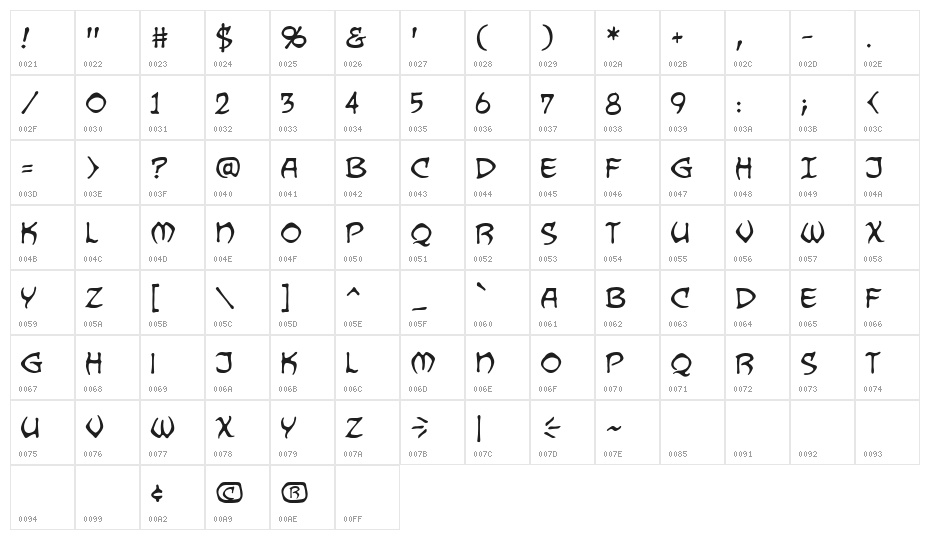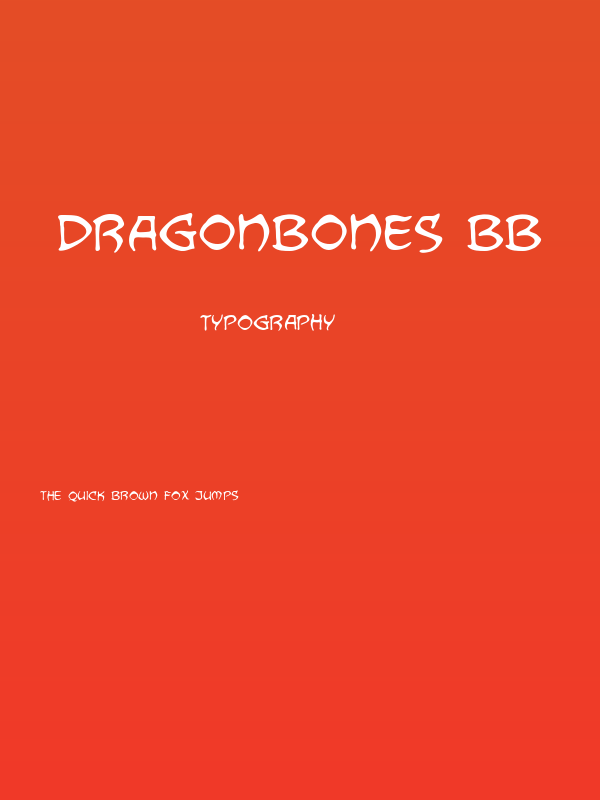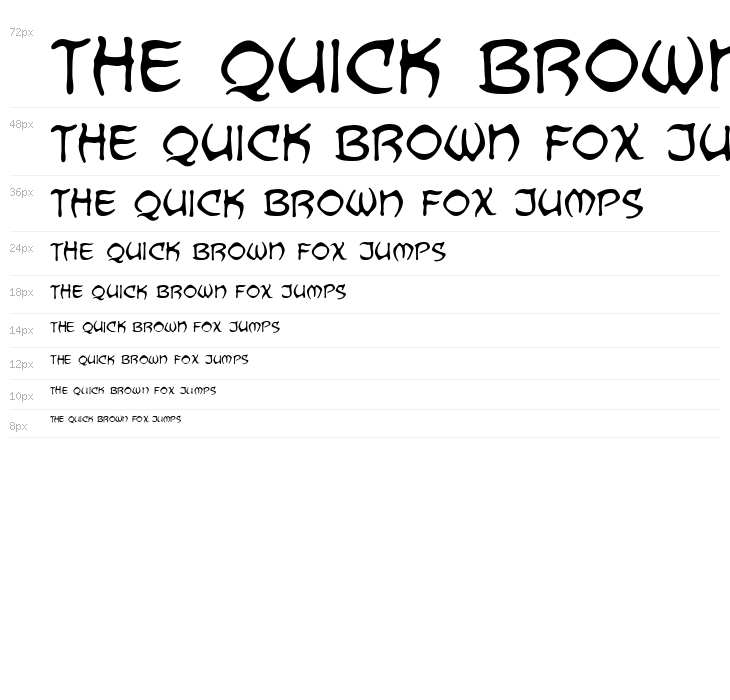
Dragonbones BB Font
Dragonbones BB Description
This font features a unique, decorative style with a hand-drawn appearance, reminiscent of ancient scripts or mystical themes. The characters have a playful and slightly irregular form, with varying stroke thickness that adds to its whimsical charm. The uppercase and lowercase letters maintain a consistent style, while the numbers and special characters blend seamlessly with the overall design. The font's organic curves and uneven lines give it a dynamic and lively feel, making it suitable for creative and imaginative projects.
| Proposed Projects | Ideal for fantasy-themed designs, game titles, book covers, and creative posters. |